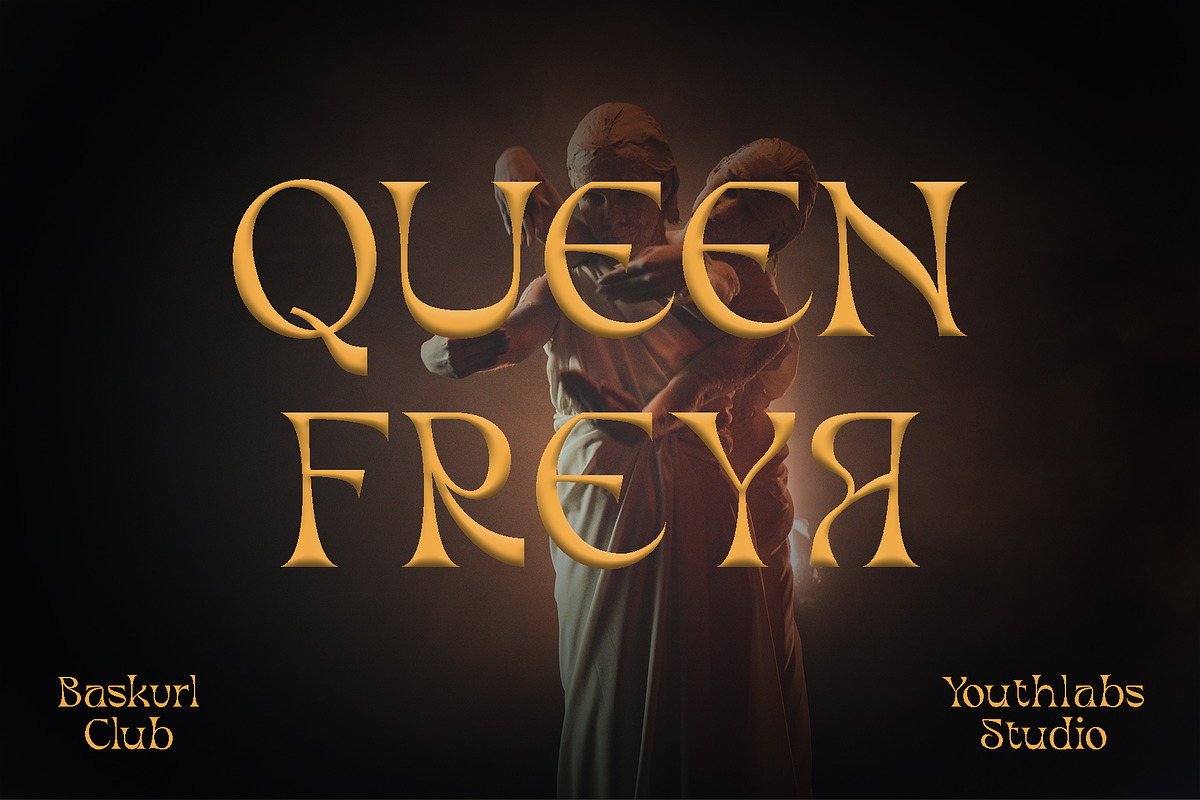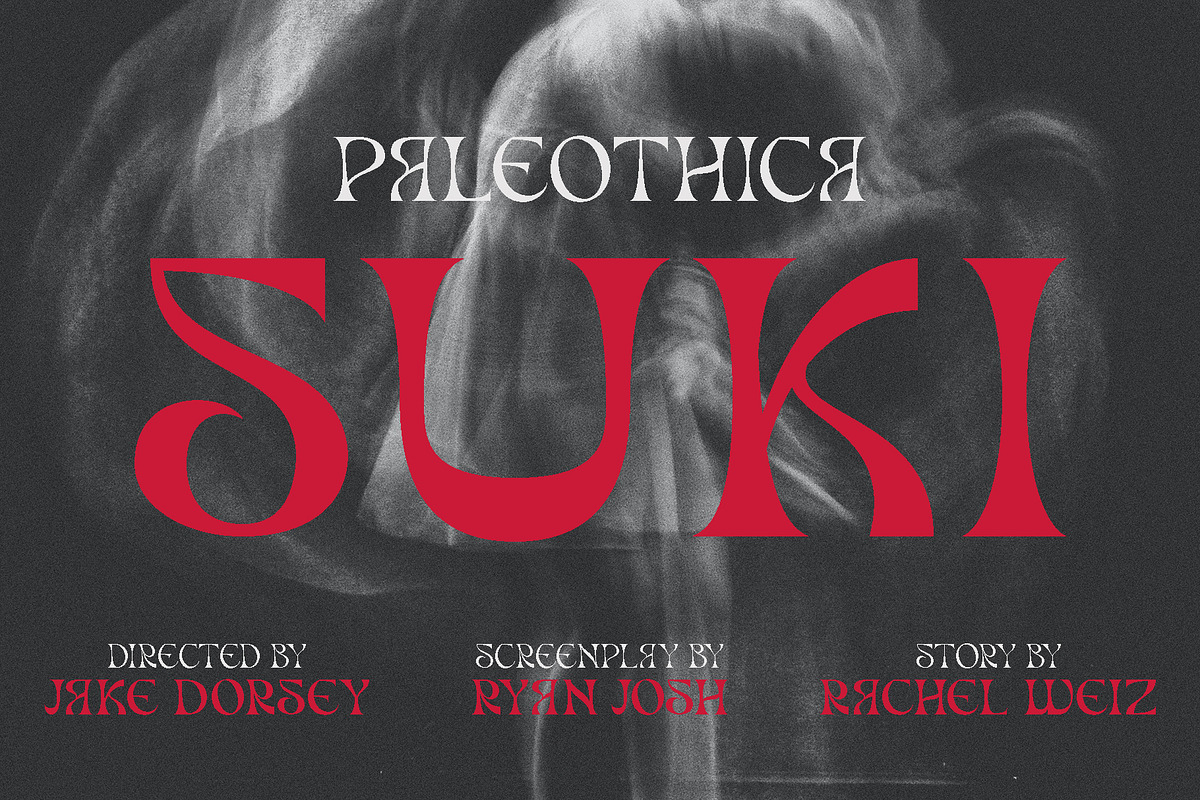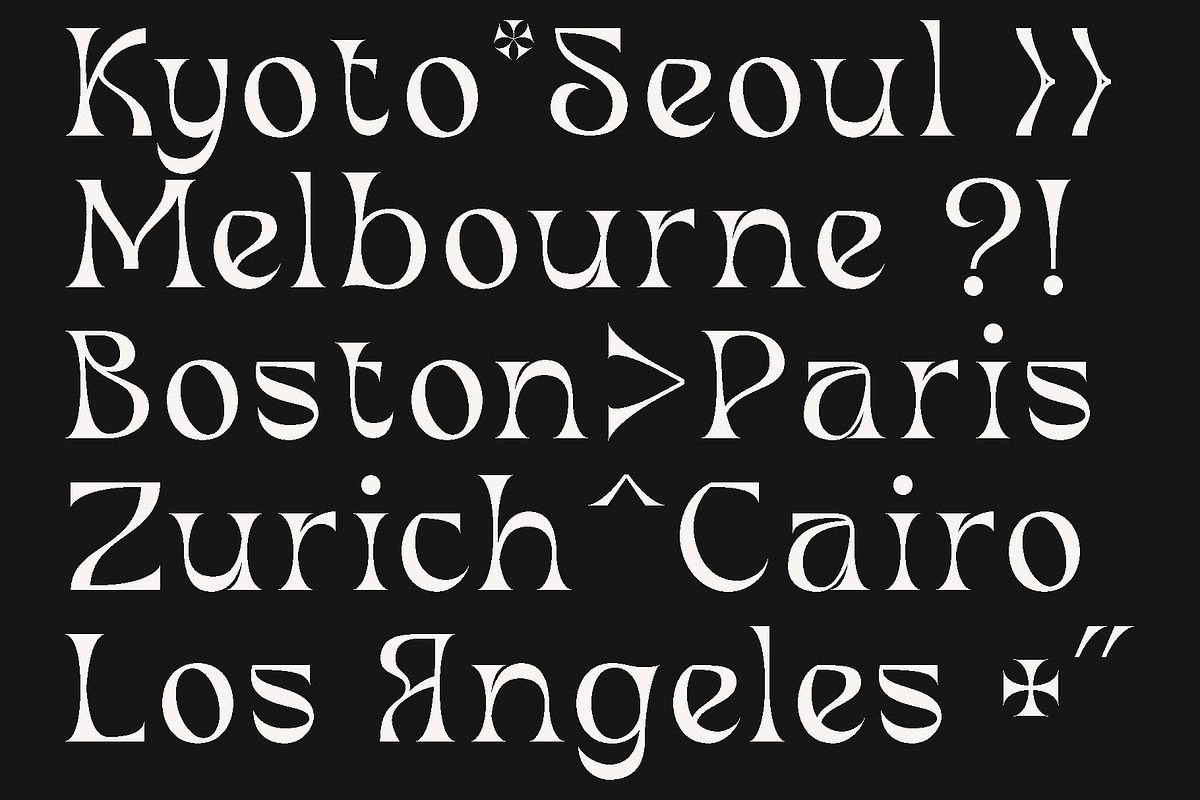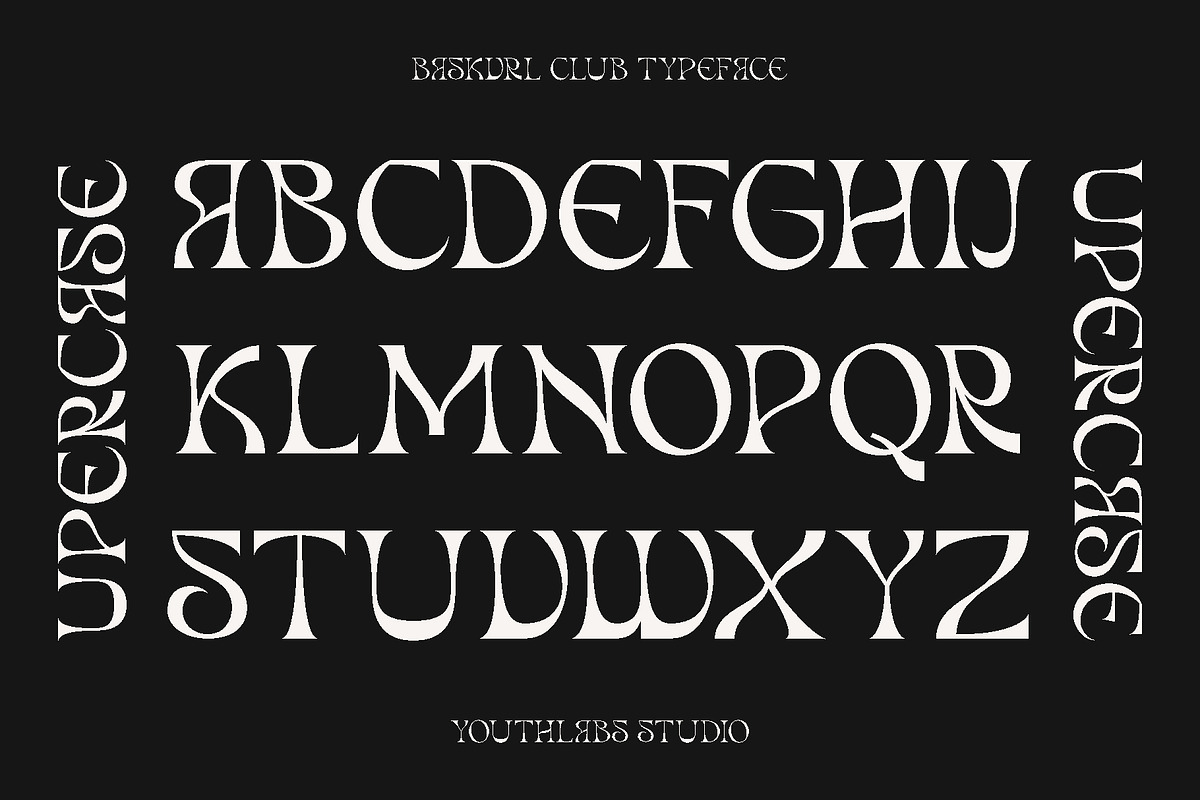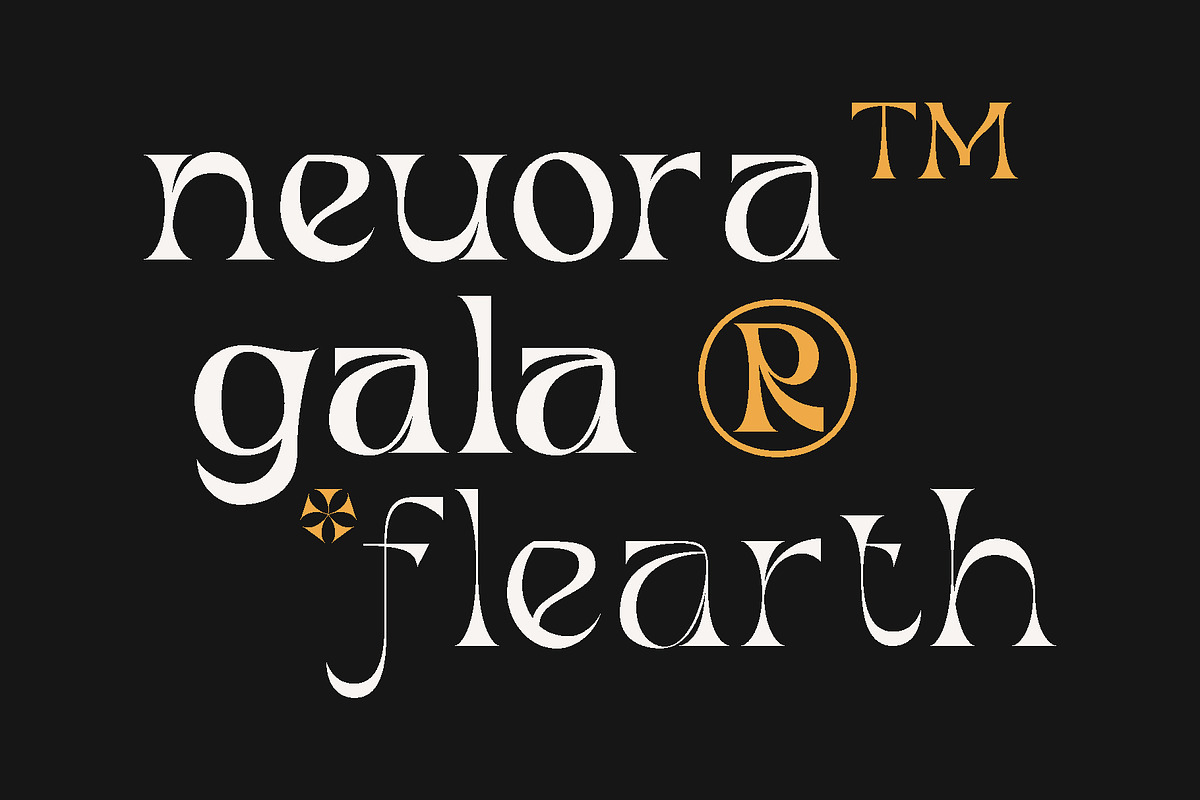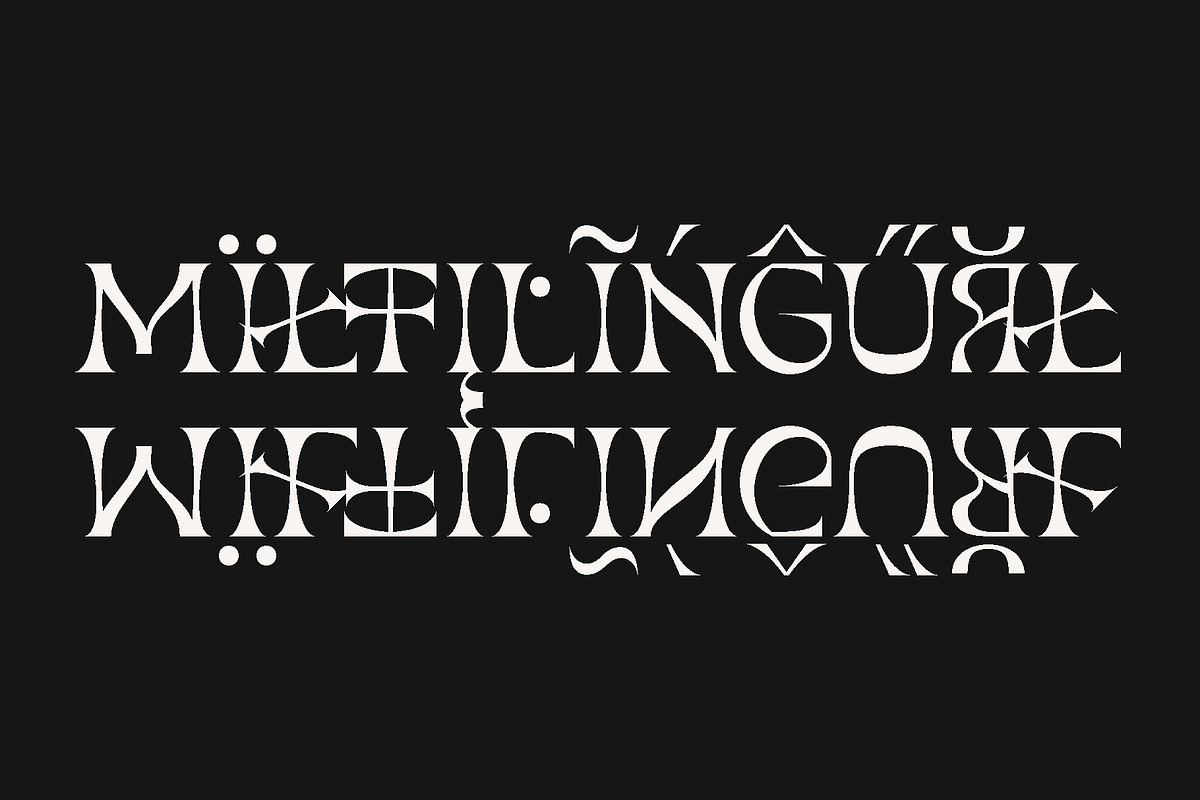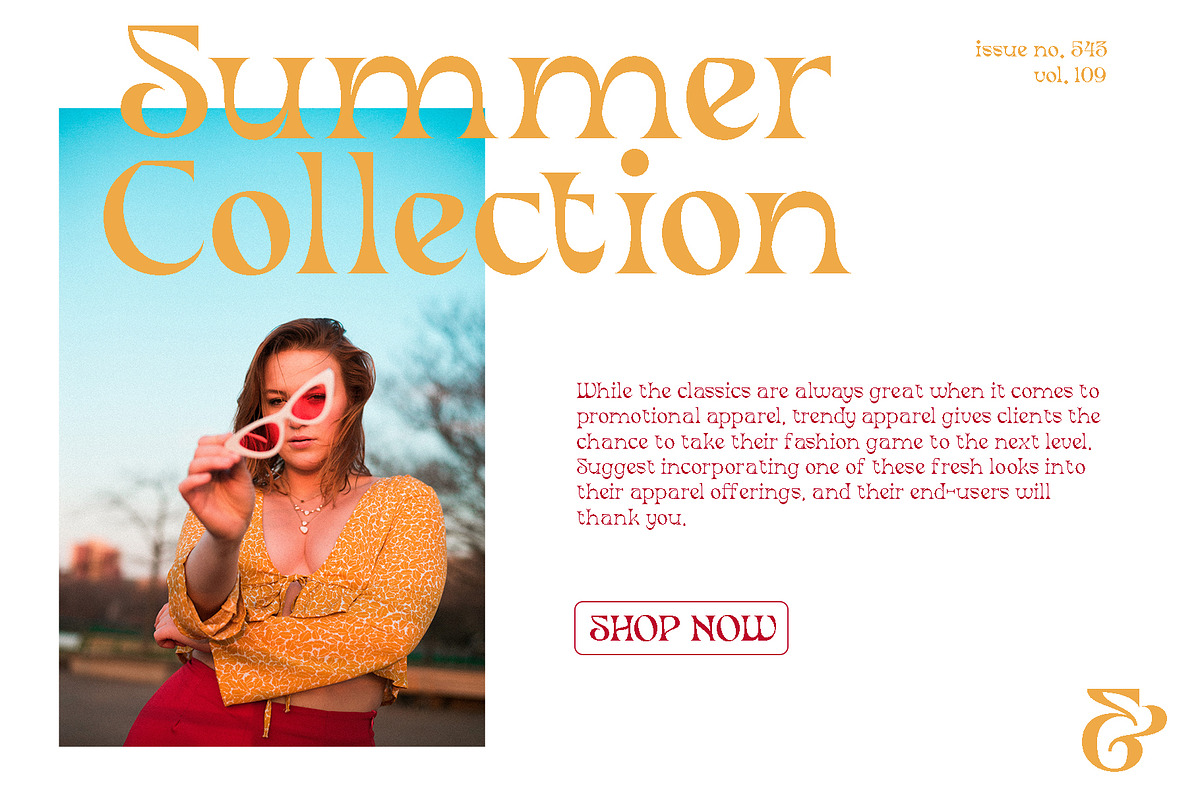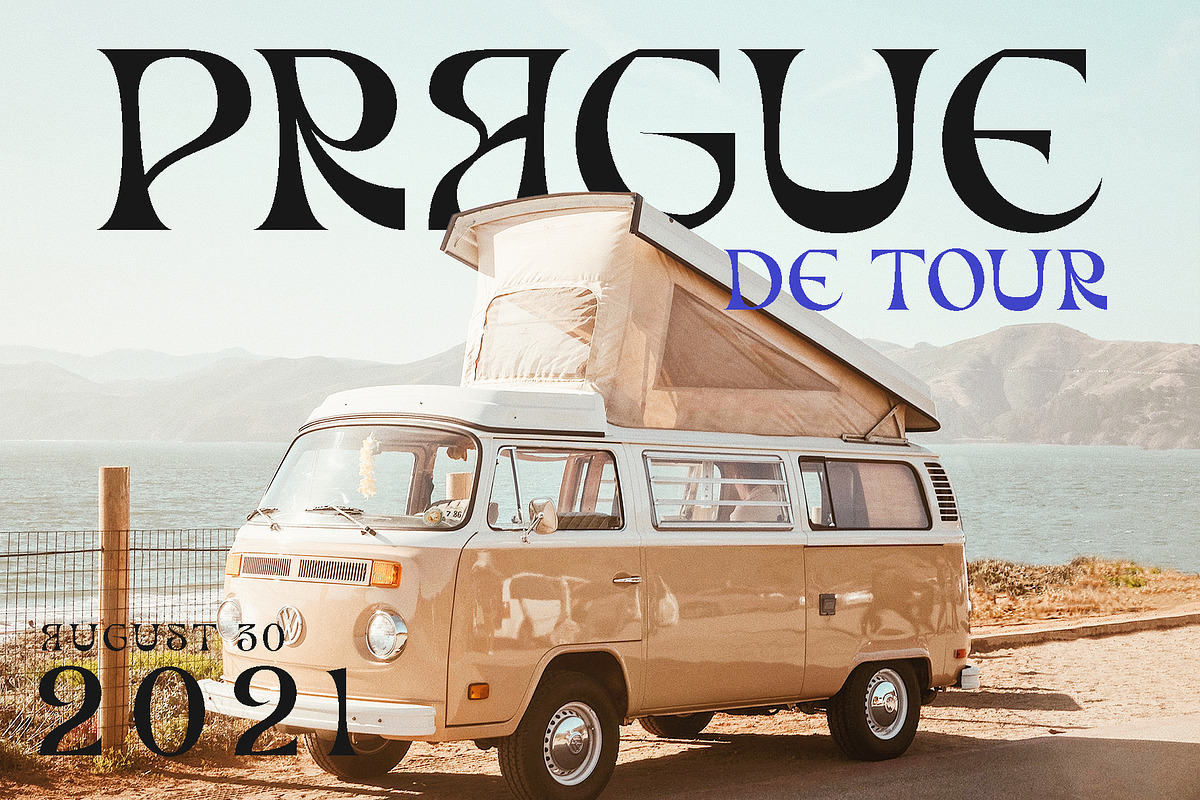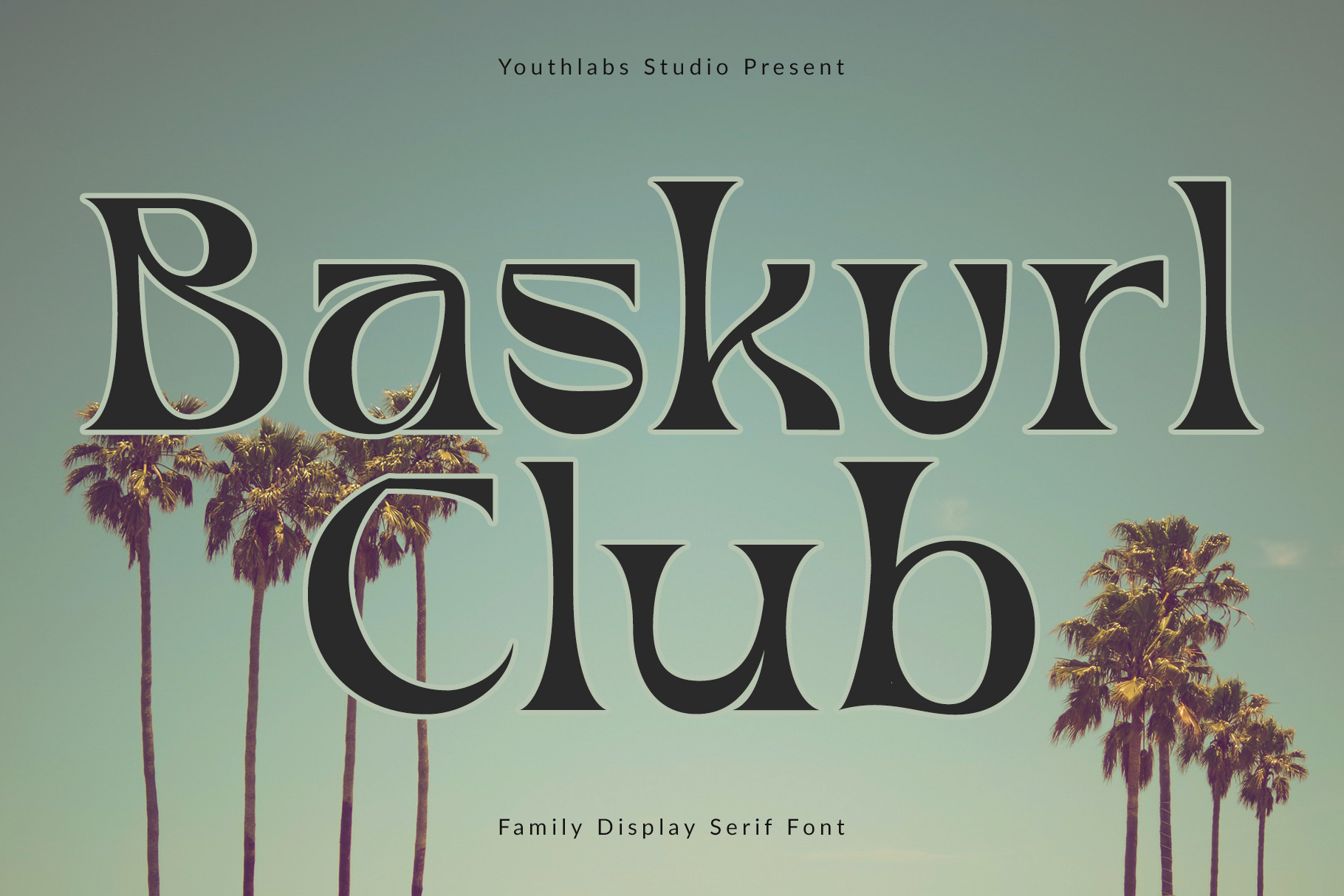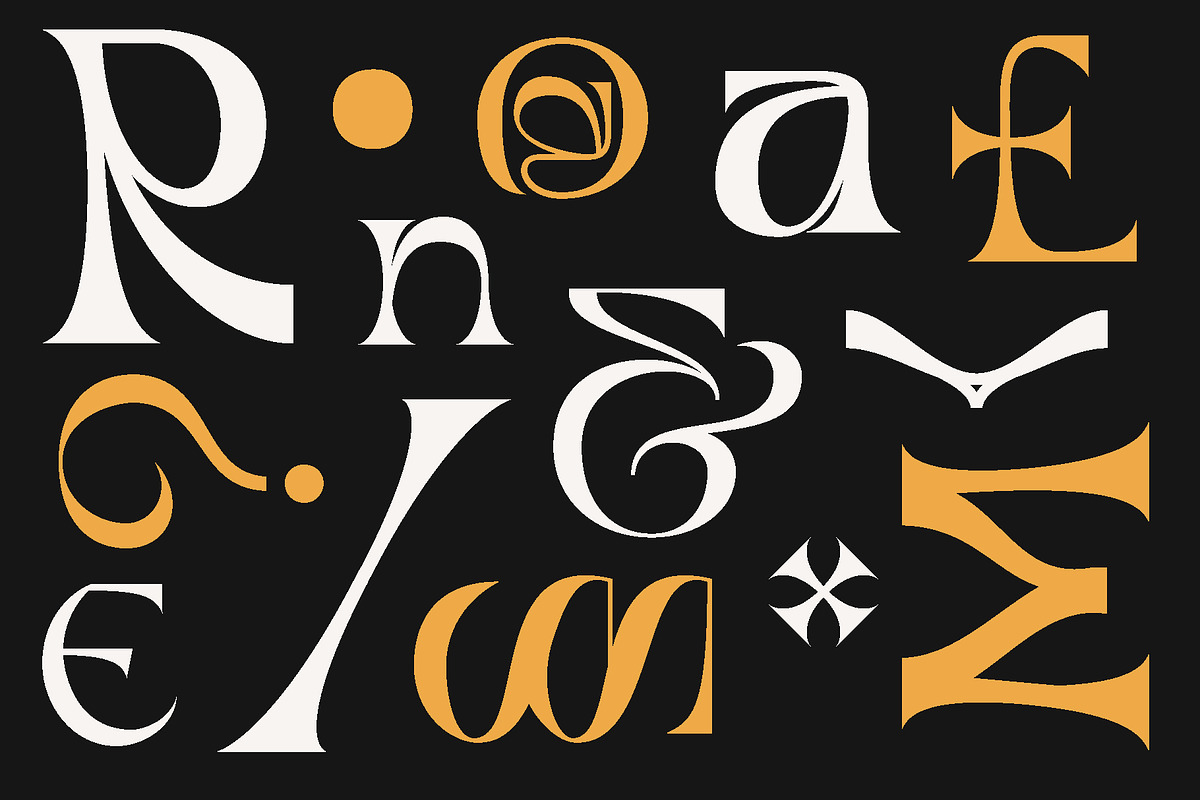
Baskvrl Club | Display Serif Font
Introducing Baskvrl Club Family - A Brand Display Serif font with cursive path, Baskvrl Club font come with variation weight thin, regular, bold that can be used to make contrast to your design. Baskvrl Club font come with More Opentype Feature, and variable font
Baskvrl Club Font Inspired by Classic and Cursive shape to make perfect design project. Baskvrl Club is a very versatile font. you can use this font to various design. Baskvrl Club font come with variation weight thin, regular, bold that can be used to make contrast to your design
- 3 Variable Font
- 94 Language Support